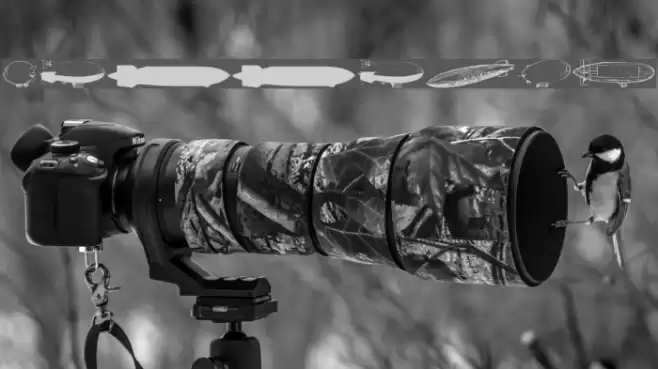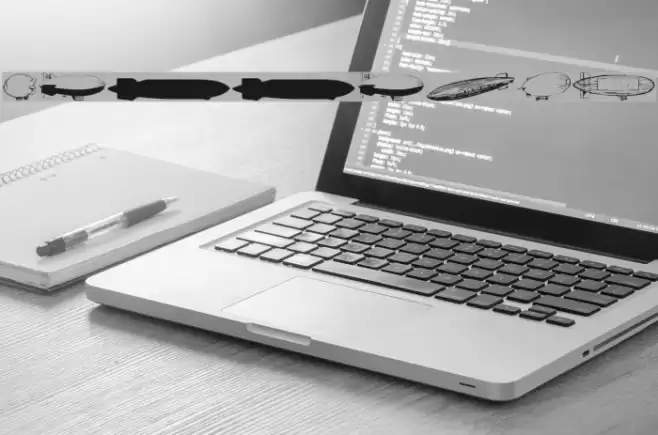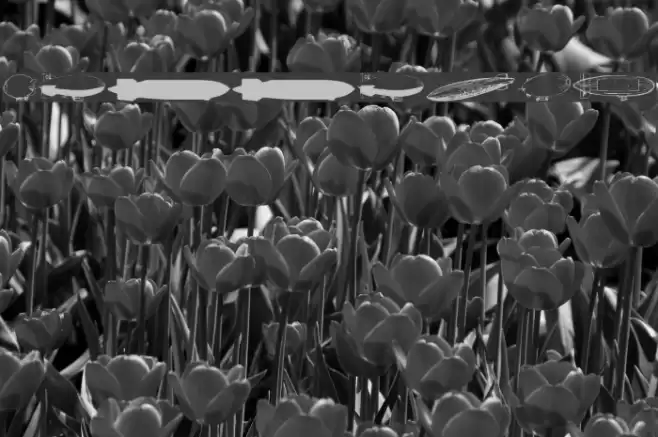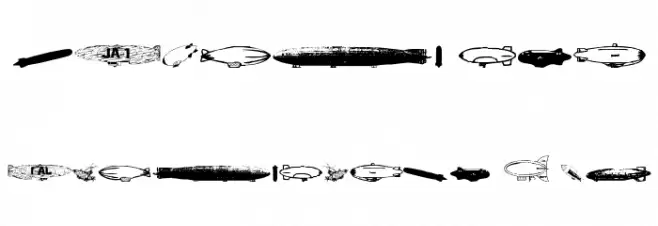
Xeppelin Font
Xeppelin Description
A decorative display font featuring detailed illustrations of various zeppelins and airships in place of standard alphanumeric characters and symbols. Each character is represented by a unique airship silhouette or drawing, with a mix of filled and outlined styles, creating a whimsical and thematic appearance.
A display font composed of zeppelin and airship illustrations for each character from Dingbats fonts.
- Proposed Projects: Posters, themed event invitations, educational materials about aviation, novelty headlines, steampunk or retro-futuristic designs.
- Overall Style: Decorative, Whimsical, Thematic
- Use Case: Logos, Headlines, Posters, Themed graphics